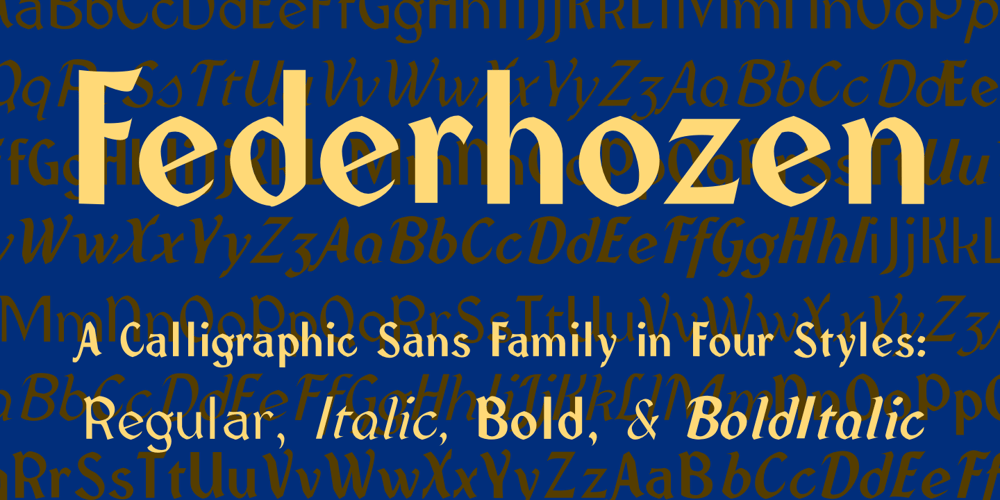
Federhozen Font Family was designed by Robert Schenk and published by Ingrimayne Type. Federhozen contains 4 styles and family package options. Federhozen is decorative and informal, not quite sans-serif and not truly calligraphic. It has good readability even at small point sizes. The italics comes close to script. It works well in places where one wants to create the illusion of very neat hand lettering.